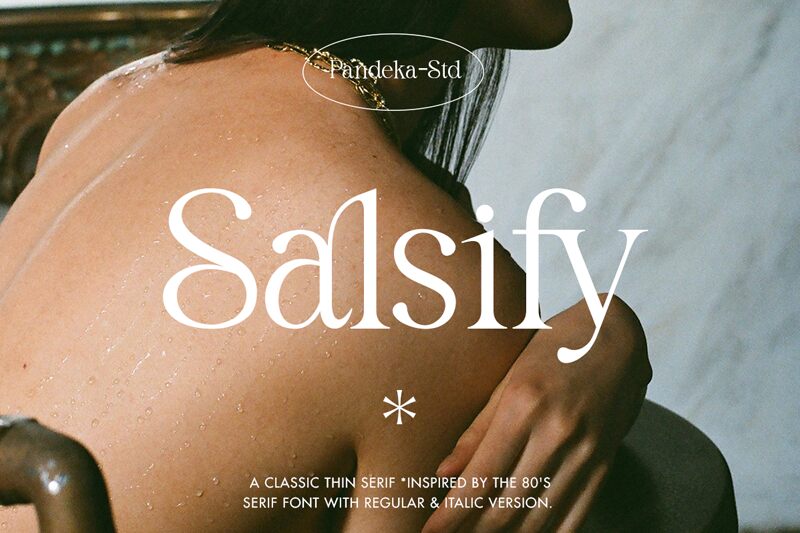
Salsify, crafted by Pandeka Studio, is a serif font that exudes a blend of classical elegance and contemporary flair. Its letters boast a graceful flow, with delicate serifs that add a touch of sophistication. The font's charm lies in its balance-neither too delicate nor overpowering, making it versatile for both text-heavy documents and statement headlines.
The stylish character of Salsify lends itself to a range of design applications. It's perfectly suited for editorial use in magazines or books where readability is key without sacrificing style. Equally, its aesthetic allure makes it an excellent choice for branding projects that require a font with personality to convey luxury or artisanal quality. Salsify stands out as an adaptable typeface that can elevate the visual narrative of any project it graces.